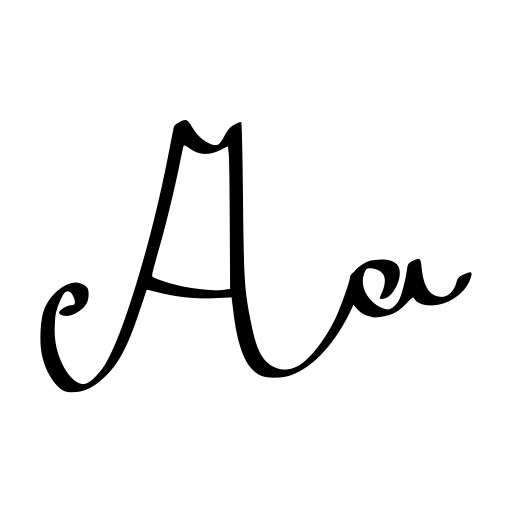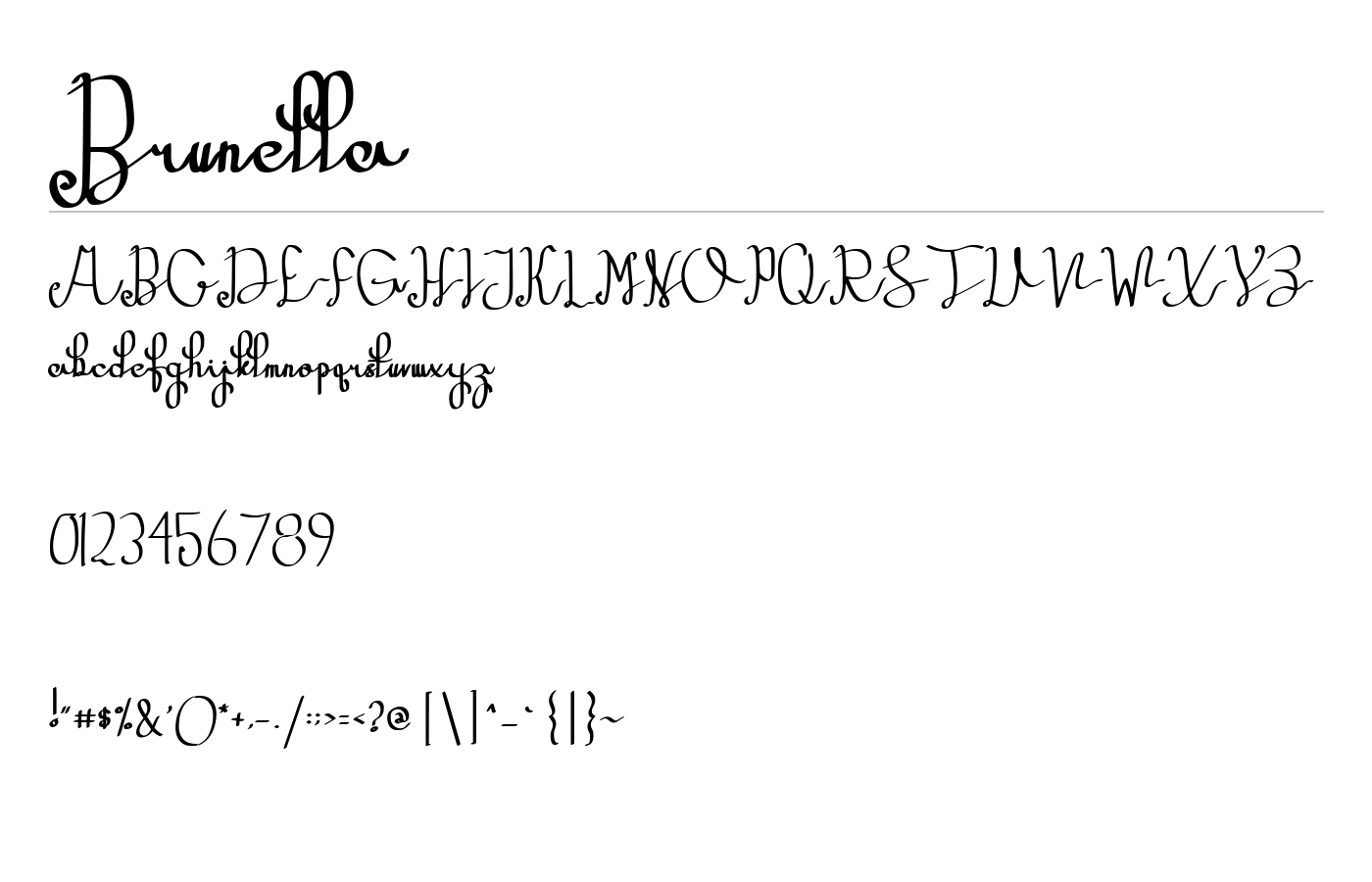
Brunella is a delicate and elegant script font characterized by its thin, flowing strokes and playful, decorative swashes that add a unique, handcrafted charm. It features a light weight with narrow letterforms and a whimsical style, making it ideal for creative projects that seek a personal, artistic touch such as invitations, branding, and feminine or boutique designs. This font works best in display sizes where its intricate details and graceful curves can truly stand out.
Brunella Font
About Brunella Font